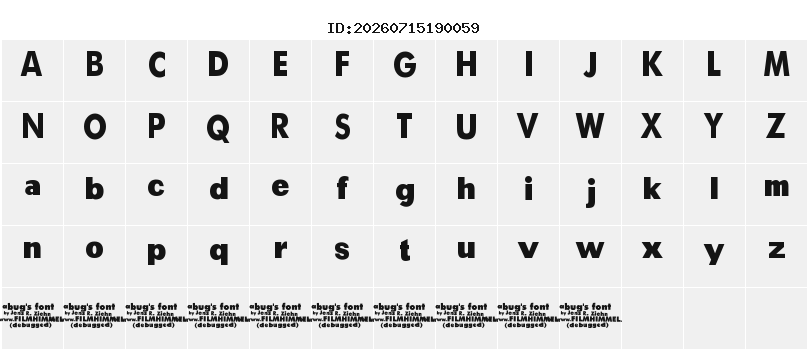
a bug's life - debugged Preview
About a bug's life - debugged.ttf
a bug's life - debugged.ttf is a modern, elegant sans-serif font designed for ultimate readability and visual harmony. Perfect for branding, headlines, web design, and print materials.